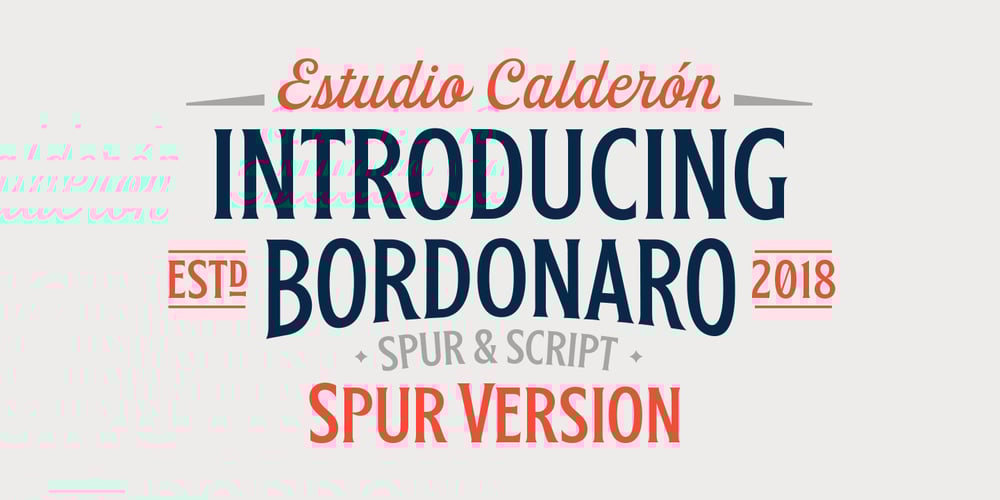
Bordonaro Spur
Bordonaro Spur font
Bordonaro Spur Font Family was designed by Felipe Calderón and published by Estudio Calderon. Bordonaro Spur contains 1 styles and family package options. Bordonaro Spur – Bordonaro Script’s partner – is a typography strongly influenced by old beer labels and includes some serifs based on Frederic W. Goudy’s Copperplate, but with some softened spurs adding an elegant and soft texture to the text. It is ideal to be used on large bodies and has a set of special ligatures ideal to be used in branding. Psss…Check out the NEW Bordonaro Spur with Rounded corners , same version but soft! FEATURES Co = company1 Co = company2 Estd = established Inc = incorporated Ltd = limited Mc = mac Rd = Road St = street And also from Adobe CC you can activate Style Sets (SS) and get ideal ligatures for ordinal numbers: 1st = st 2nd = nd 3rd = rd 4th = th Bordonaro Script and Bordonaro Spur are two typographic styles that were designed under the same characteristic features with the idea of combining them to obtain better results, for that reason, we recommend merging them in a creative way and you will realize everything you can design with them. The banners designs are based on old brands of beer labels, coffee packaging, sports logos and in some cases we use Copperplate Gothic but only as a complementary font in order to harmonize the layout of the elements in each banner.